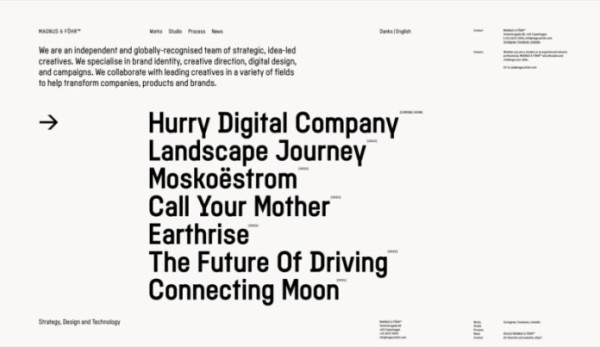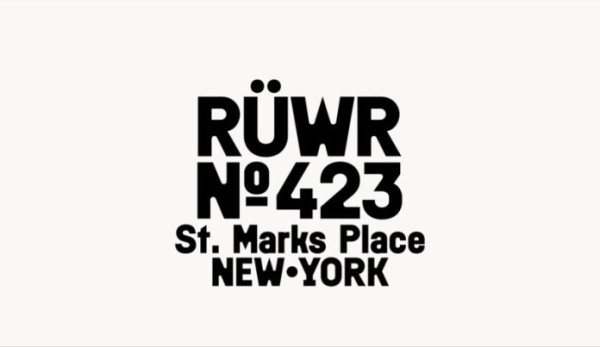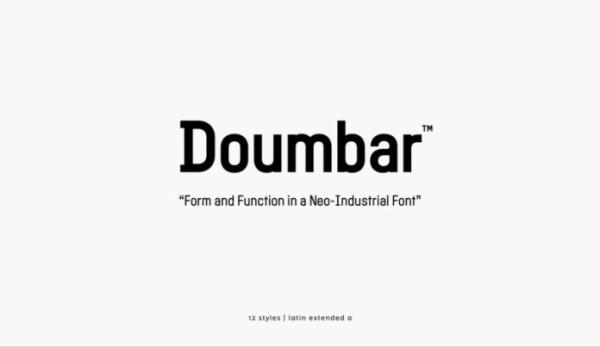
Doumbar Font
Doumbar Font is a geometric sans serif that is a bit serious, but not that serious. It strikes a balance between formalism and heterodoxy in its design, imbuing the font with both technical precision and a distinctive character. The result is an austere yet engaging typeface that exudes personality. Doumbar comes in three styles (Normal, Plate and Stencil) and twelve weights and works fine for both print and digital design, logos, branding, editorial deign, packaging, publishing and web design.